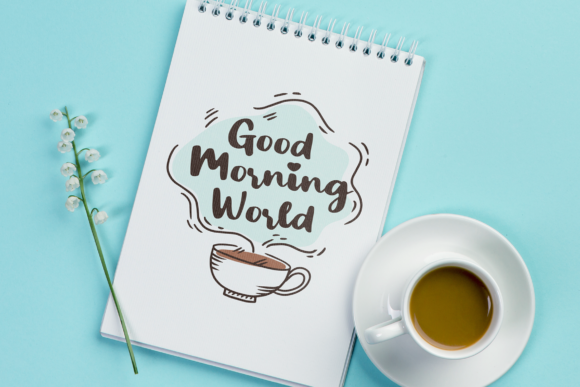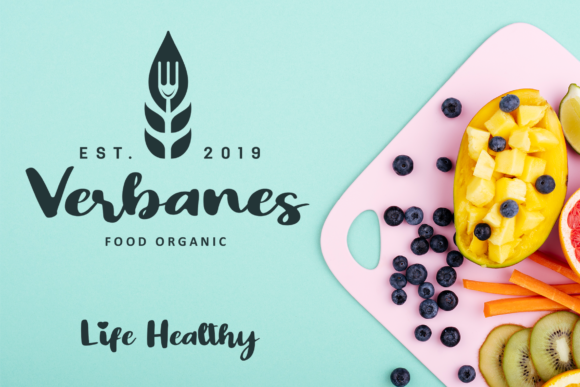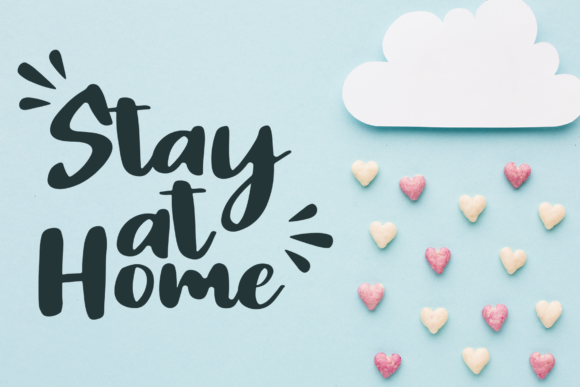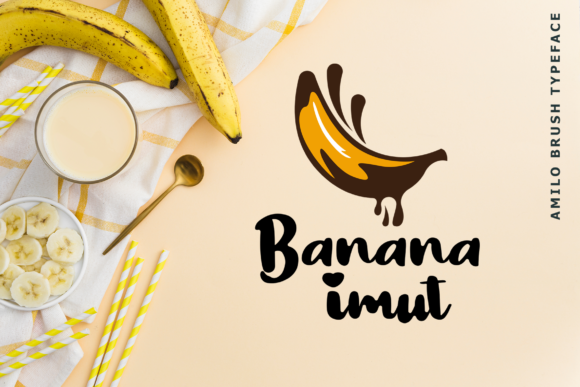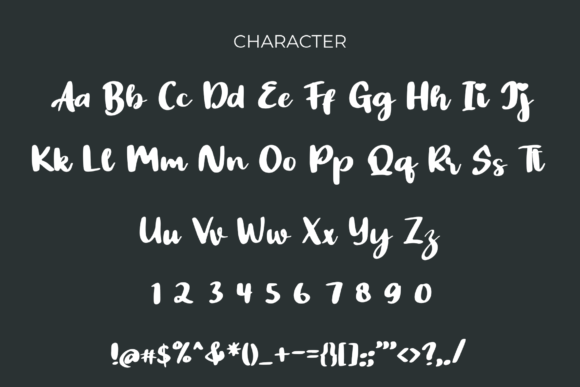
Introducing Amilo Font: Elevate Your Designs with Elegant Handwritten Calligraphy
Are you a designer or crafter looking for a unique and captivating font to take your creative projects to the next level? Look no further than Amilo Font, a stunning handwritten calligraphy font that seamlessly blends traditional authenticity with modern style. In this article, we’ll dive into the world of Amilo Font, exploring its features, benefits, and uses, as well as provide tips on how to make the most of this beautiful typography.
What is Amilo Font?
Amilo Font is a lovely handwritten calligraphy font that boasts a beautiful combination of authentic calligraphy and modern style. This elegant font is perfect for making original and outstanding designs that stand out from the crowd. With its flowing lines, delicate curves, and intricate details, Amilo Font adds a touch of sophistication and refinement to any project.
Features of Amilo Font
So, what makes Amilo Font so special? Here are just a few of its key features:
- Handwritten calligraphy style: Amilo Font boasts a beautiful, handwritten calligraphy style that adds a personal touch to any design.
- Modern twist: Despite its traditional roots, Amilo Font has a modern edge that makes it perfect for contemporary designs.
- Unique character set: Amilo Font features a unique character set that includes uppercase and lowercase letters, numbers, and special characters.
- High-quality design: Amilo Font is designed with high-quality craftsmanship in mind, ensuring that every letter and detail is meticulously crafted for maximum impact.
Benefits of Using Amilo Font
So, why should you choose Amilo Font for your next design project? Here are just a few benefits of using this stunning font:
- Adds elegance and sophistication: Amilo Font adds a touch of elegance and sophistication to any design, making it perfect for high-end branding, packaging, and marketing materials.
- Stand out from the crowd: With its unique and eye-catching design, Amilo Font helps your designs stand out from the crowd and grab attention.
- Perfect for creative projects: Amilo Font is ideal for creative projects such as invitations, greeting cards, and crafts, where a personal touch is desired.
Tips for Using Amilo Font
To get the most out of Amilo Font, here are a few tips to keep in mind:
- Pair with contrasting fonts: Pair Amilo Font with contrasting fonts to create visual interest and add depth to your designs.
- Use for headlines and titles: Amilo Font is perfect for headlines and titles, where its elegant and sophisticated design can shine.
- Experiment with colors: Experiment with different colors and textures to add an extra layer of creativity to your designs.
- Pay attention to spacing: Pay attention to spacing and kerning to ensure that your text is easy to read and visually appealing.
In conclusion, Amilo Font is a stunning handwritten calligraphy font that offers a unique and captivating way to elevate your designs. With its beautiful combination of authentic calligraphy and modern style, Amilo Font is perfect for designers and crafters looking to add a touch of elegance and sophistication to their creative projects. Whether you’re working on a branding project, packaging design, or craft project, Amilo Font is sure to impress.